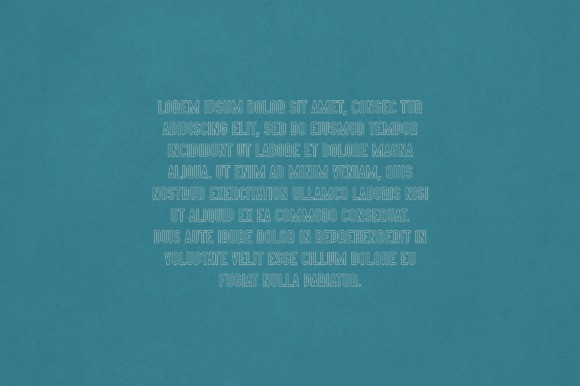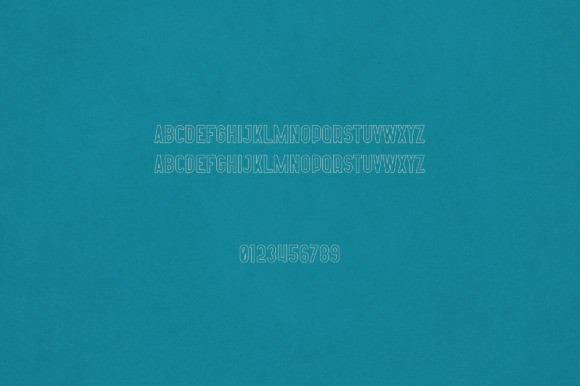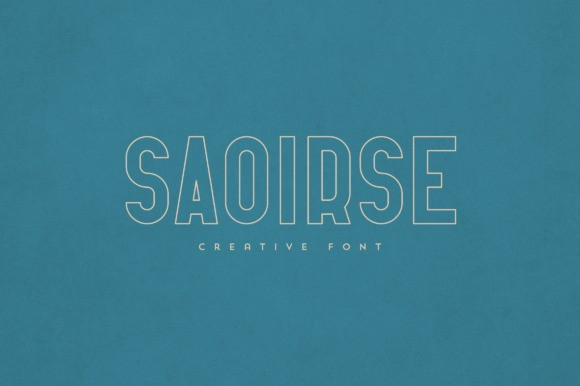
Saoirse Font
Saoirse Font is an elegant and versatile font that will make your typography truly unique! It will enchant every logo, branding, headline, or plain text!